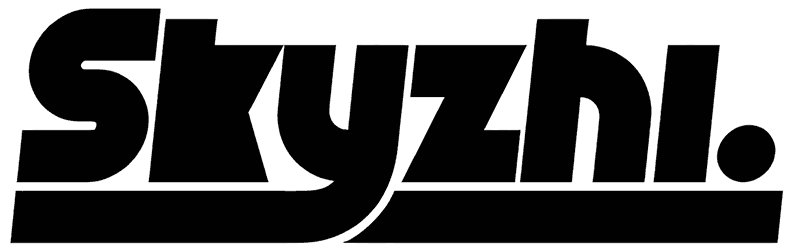
Skyzhi Font
Techno fonts, through the science fiction and futuristic vibes, would move mountains in pointing out any labels of ads, magazine headers, or even sports branding. Relying on the lettering design of the Skyzhi font that satisfies any sight of your writing style.
Make progress in the essence of your coming illustration via this logo font, despite lacking numbers. Now, try out the affection, power, and spirit of it and make a unique experience.